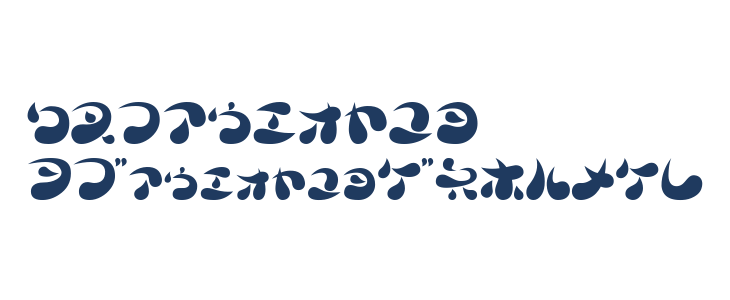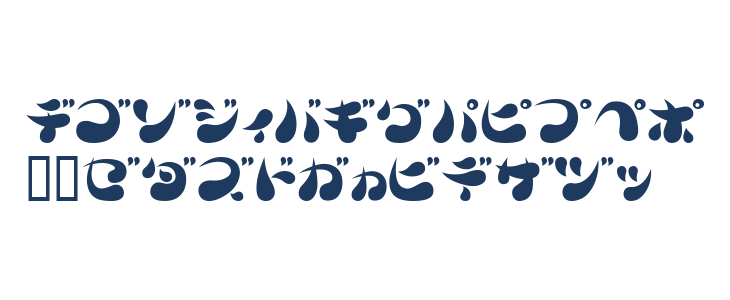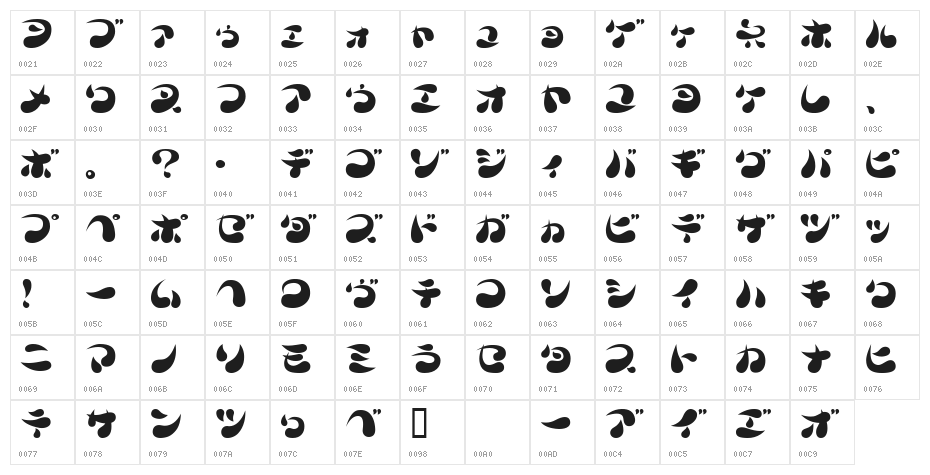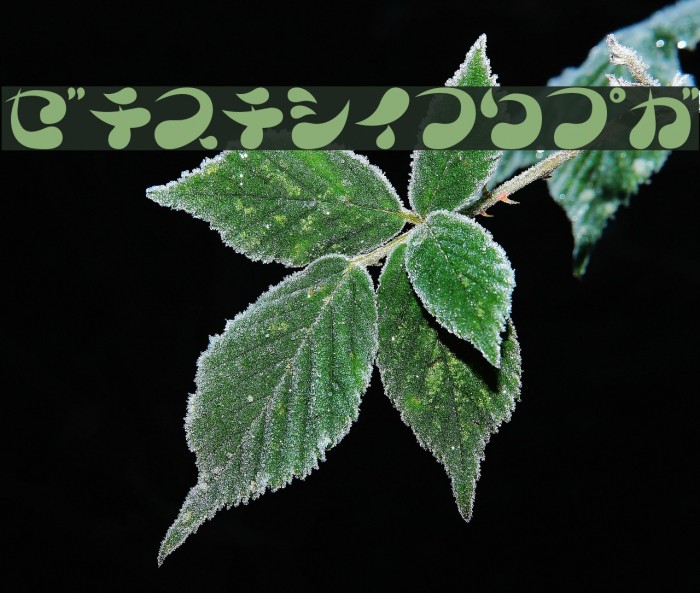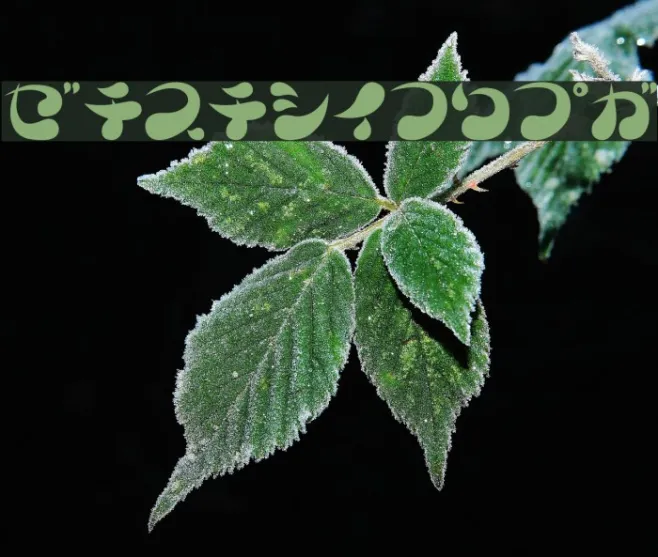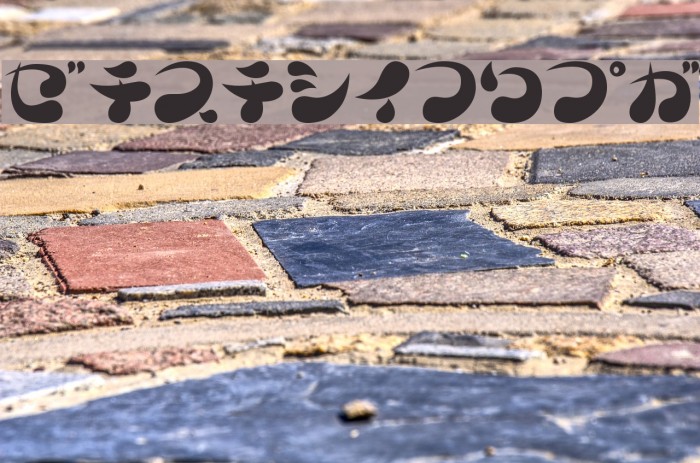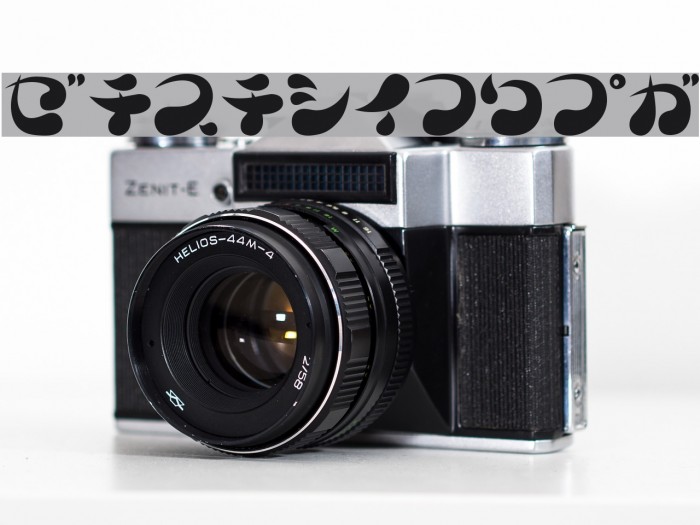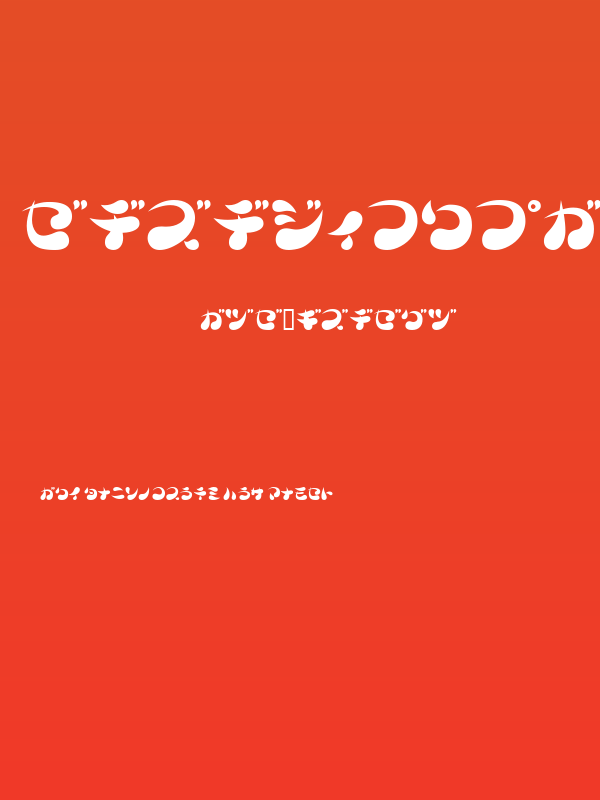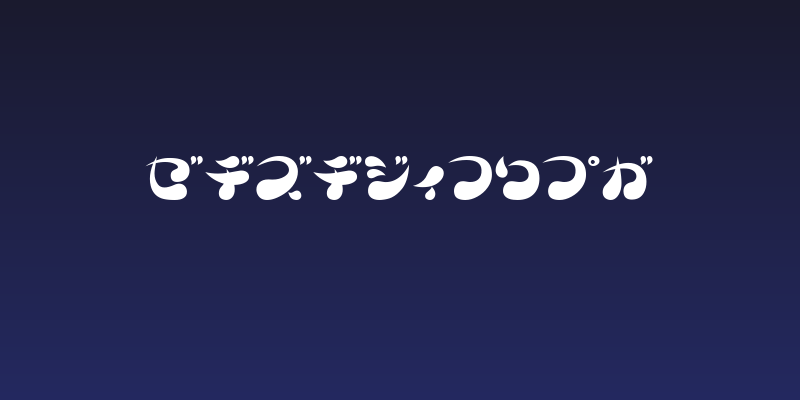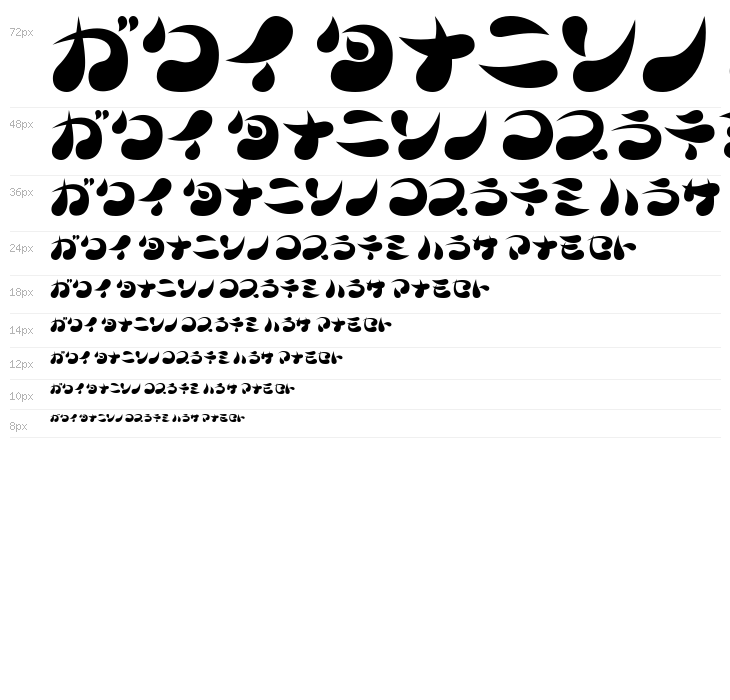
Parade20KT Font
Parade20KT Description
This font features a bold and playful design with a unique, bubbly appearance. The characters are rounded and have a whimsical style, making them stand out with their thick, exaggerated strokes. The overall look is reminiscent of a cartoonish or comic style, with a sense of fun and creativity. The font's distinctiveness is enhanced by its high contrast in stroke thickness, giving it a dynamic and lively feel. The spacing between characters is relatively tight, contributing to its compact and cohesive look. This font is ideal for projects that require a touch of humor and lightheartedness.
Overall StylePlayful, Cartoonish, Whimsical
Proposed ProjectsPerfect for children's books, comic strips, playful branding, or any project needing a fun and whimsical touch.